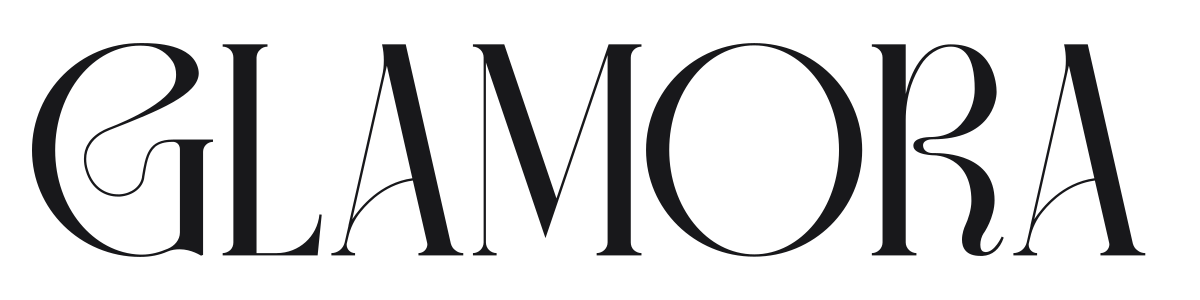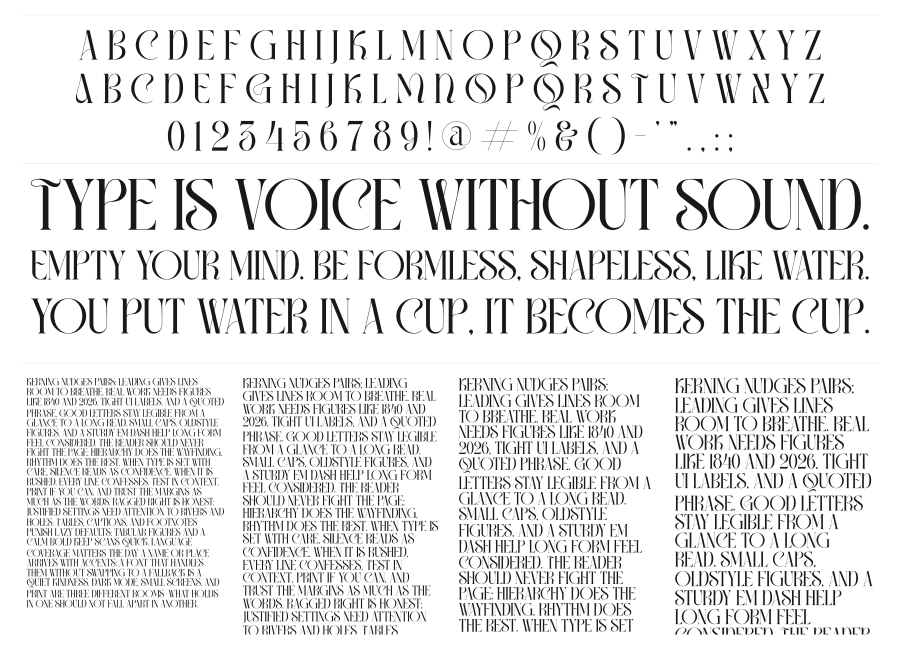
Glamora
Glamora is a high-contrast display serif that channels the theatrical elegance of Art Deco and Didone traditions. The extreme stroke contrast between razor-thin hairlines and heavy stems, combined with decorative swash-like details, gives it a distinctly glamorous, high-fashion personality. Best used large, where its dramatic proportions and fine details can breathe.